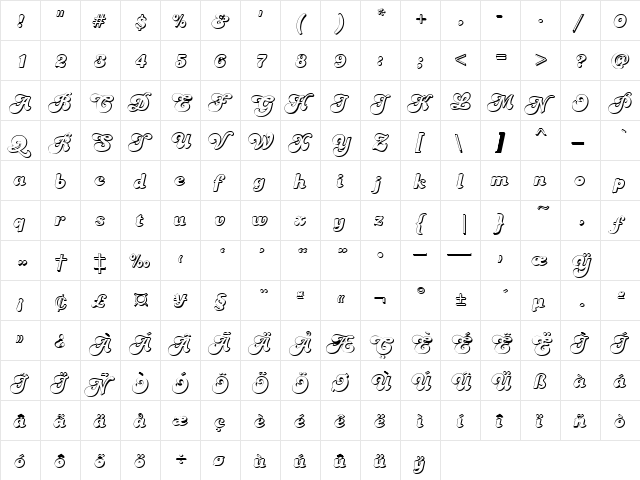
Picobello Regular
Design Context for Picobello Typeface
Picobello is a composed and adaptable typeface that performs quietly and consistently across a wide range of design contexts.